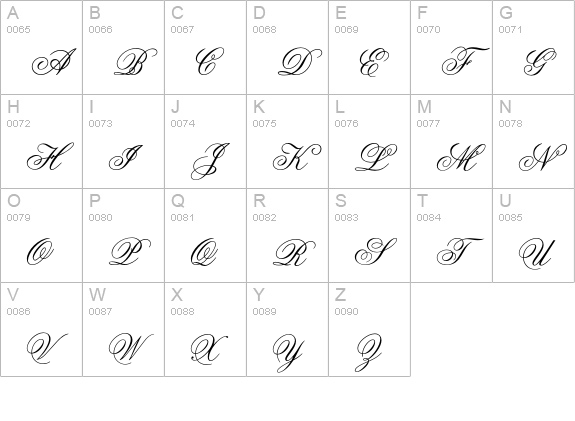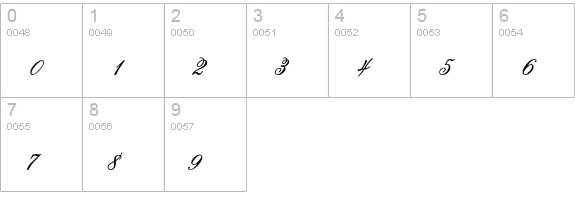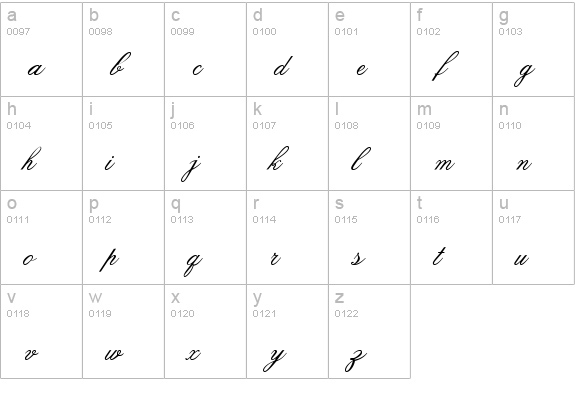
OPTIFlemish-Script Font Details
Introducing OPTIFlemish-Script, a stunning and elegant font that exudes sophistication and charm. This exquisite script font combines classic elements with a modern twist, making it perfect for a wide range of design projects. With its flowing lines and intricate details, OPTIFlemish-Script adds a touch of luxury and refinement to any creative endeavor. What makes OPTIFlemish-Script even more appealing is that it is available for free download at FontsMarket.com. This means you can elevate your designs without breaking the bank, making it a fantastic choice for both personal and commercial use. Whether you're working on invitations, branding, signage, or any other project that needs a touch of elegance, OPTIFlemish-Script is sure to impress. Don't miss out on this opportunity to enhance your designs with the beauty and grace of OPTIFlemish-Script. Download it for free today and add a touch of sophistication to your next project!